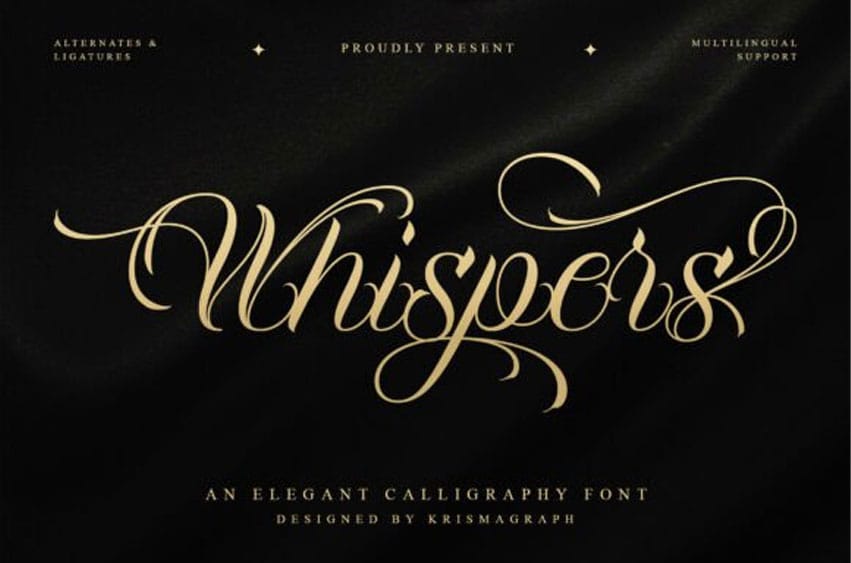
Whispers Font is a masterful expression of modern calligraphy, designed to bring an air of high-end luxury to every project.
This Whispers typeface is defined by its dramatic, sweeping swashes and intricate ligatures that create a seamless, hand-written appearance. It is the perfect choice for high-fashion branding, boutique stationery, and elegant wedding invitations where a delicate yet confident touch is required.
You can enhance the Whispers font by pairing it with a clean serif for a balanced, editorial look or using it as a standalone signature mark for personal branding. Its fluid rhythm and sophisticated curves make it an essential tool for designers seeking to add a layer of prestige and artisanal charm to their visual storytelling.